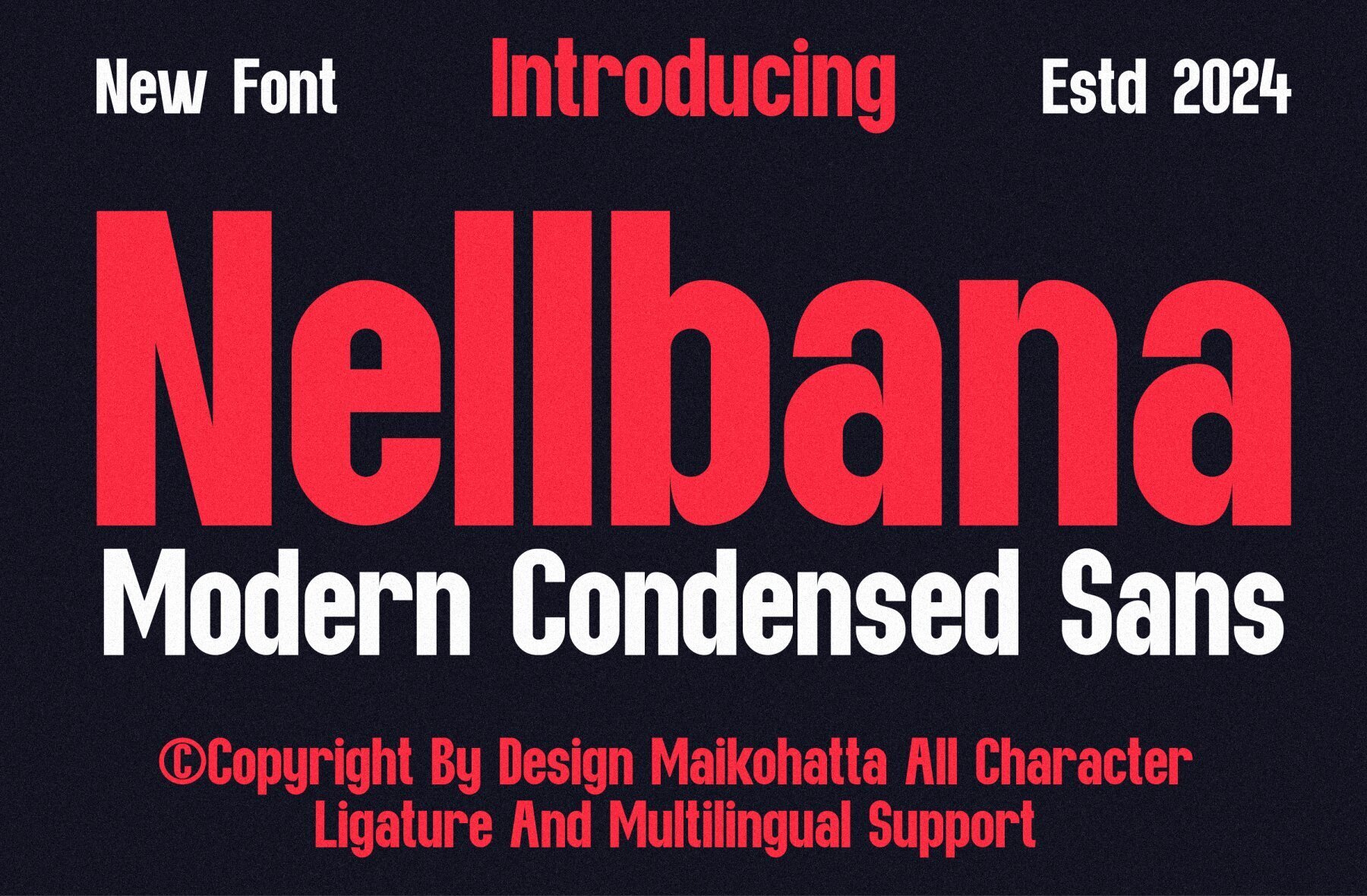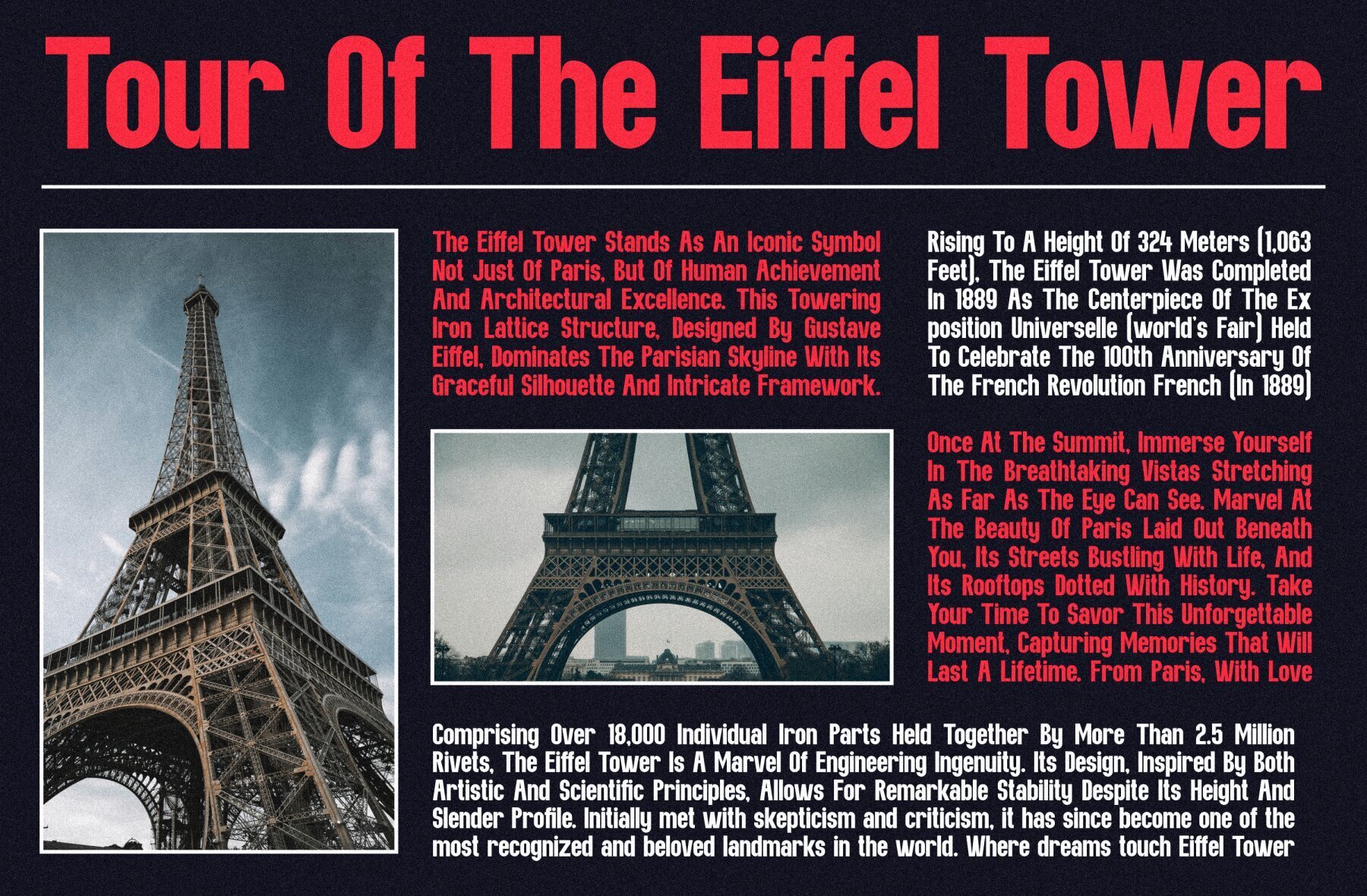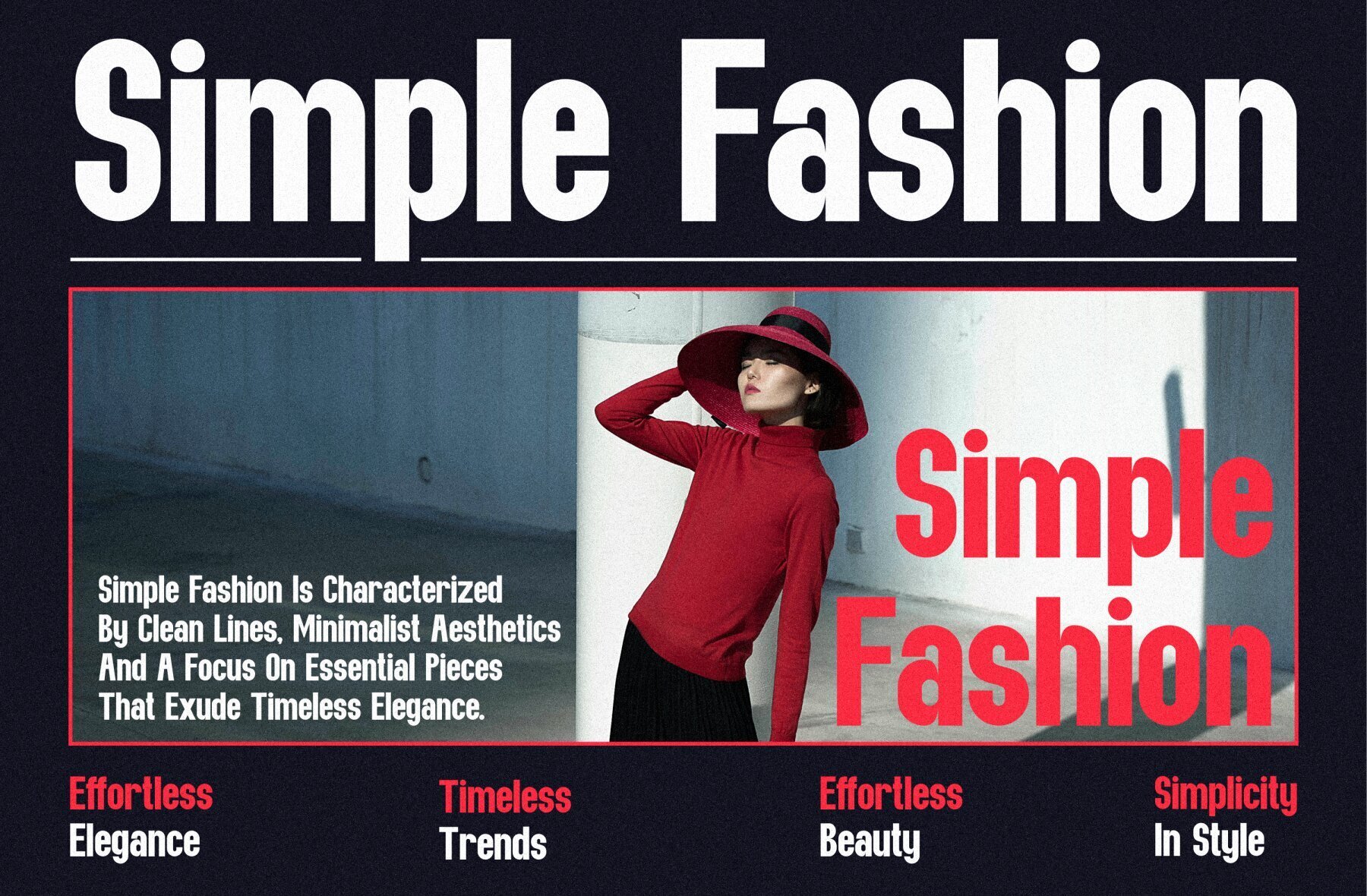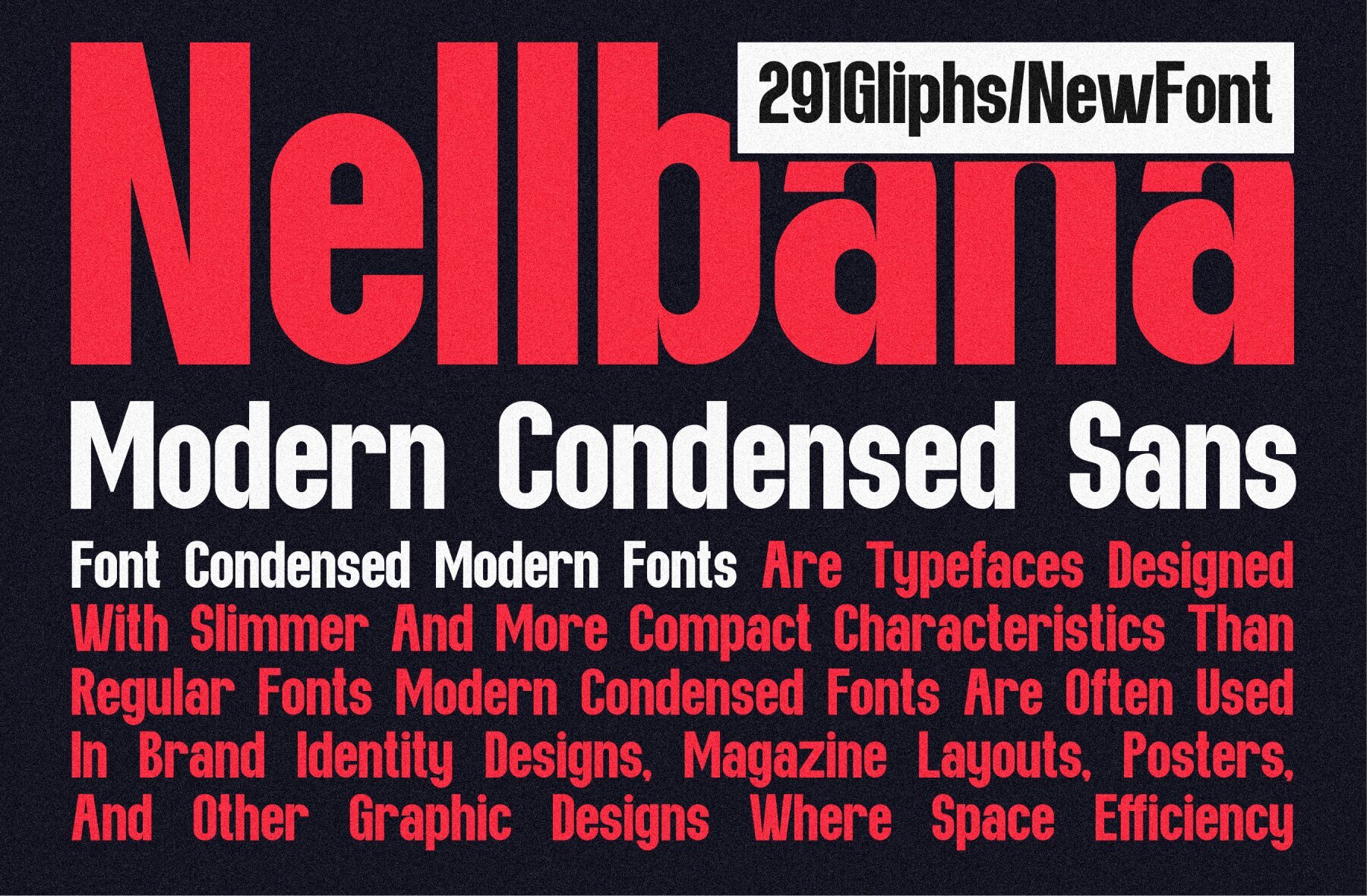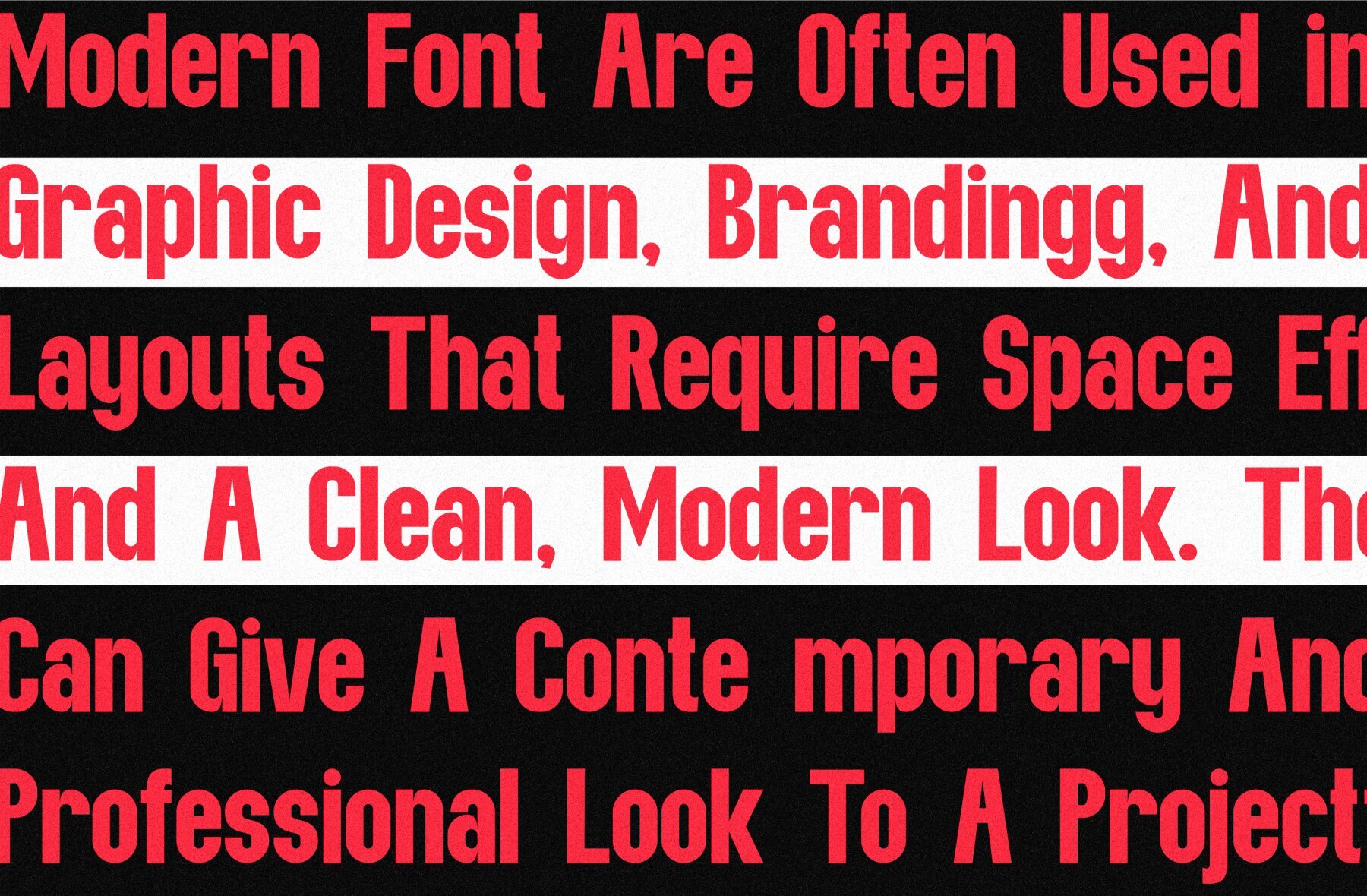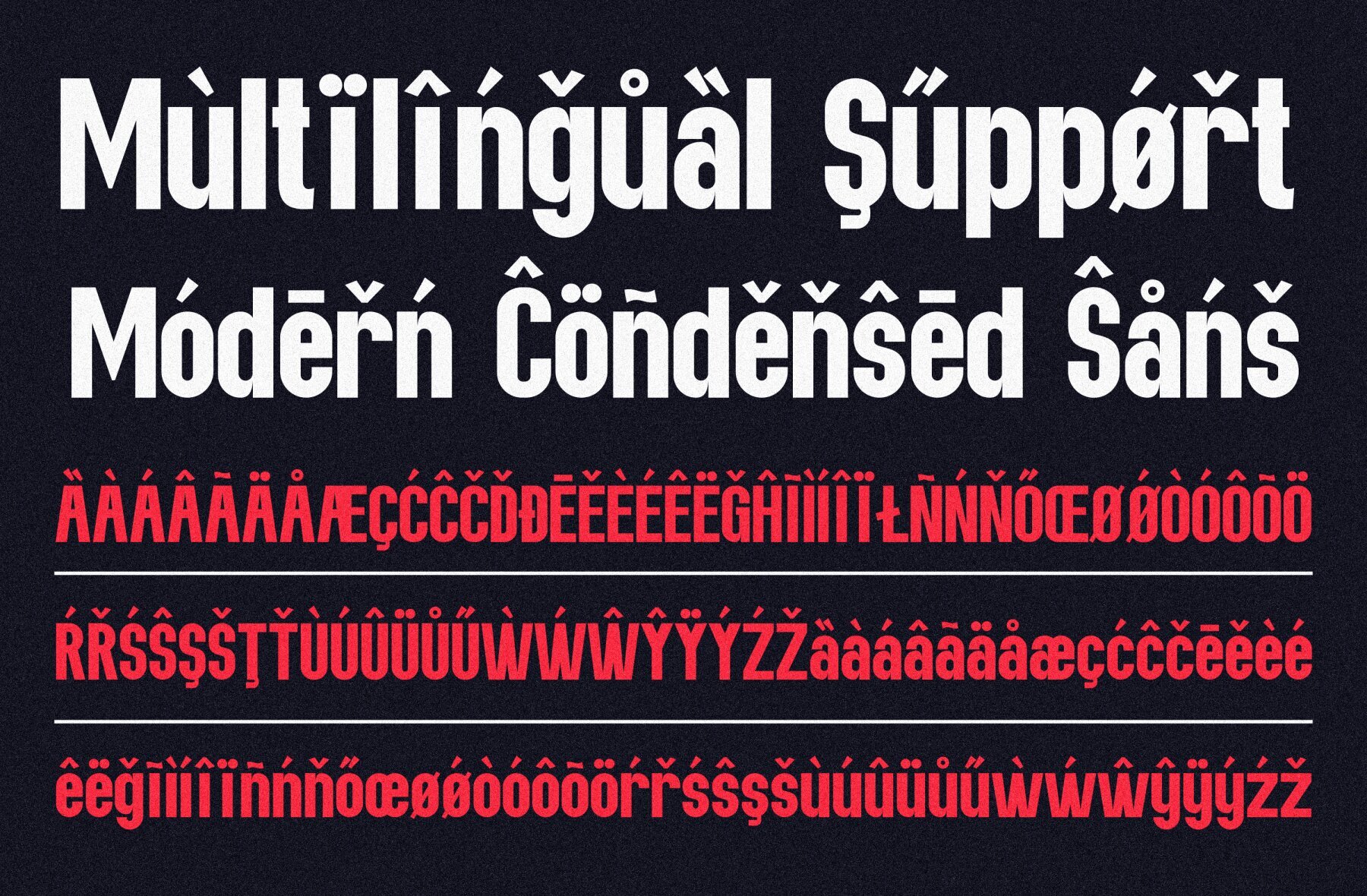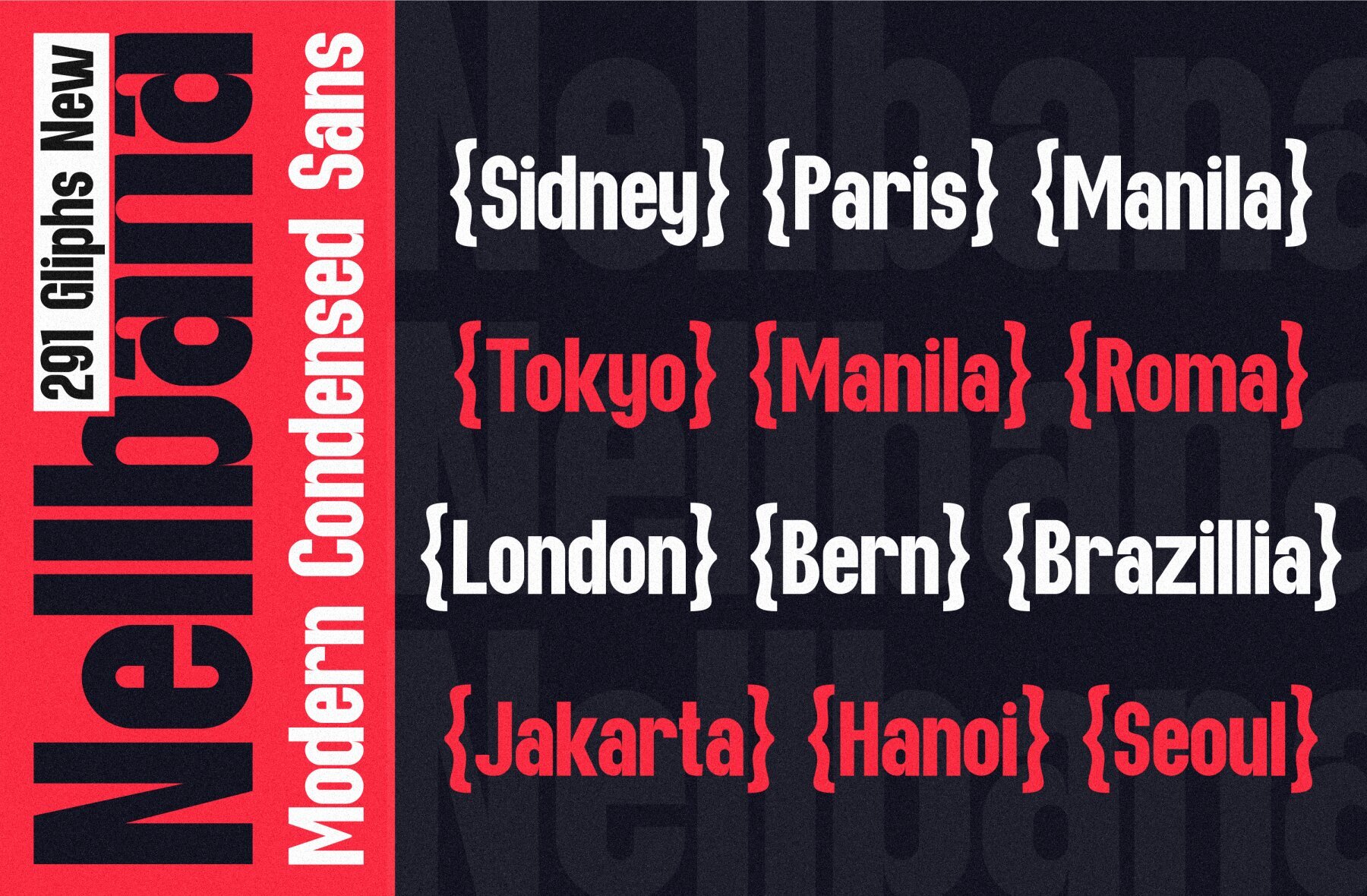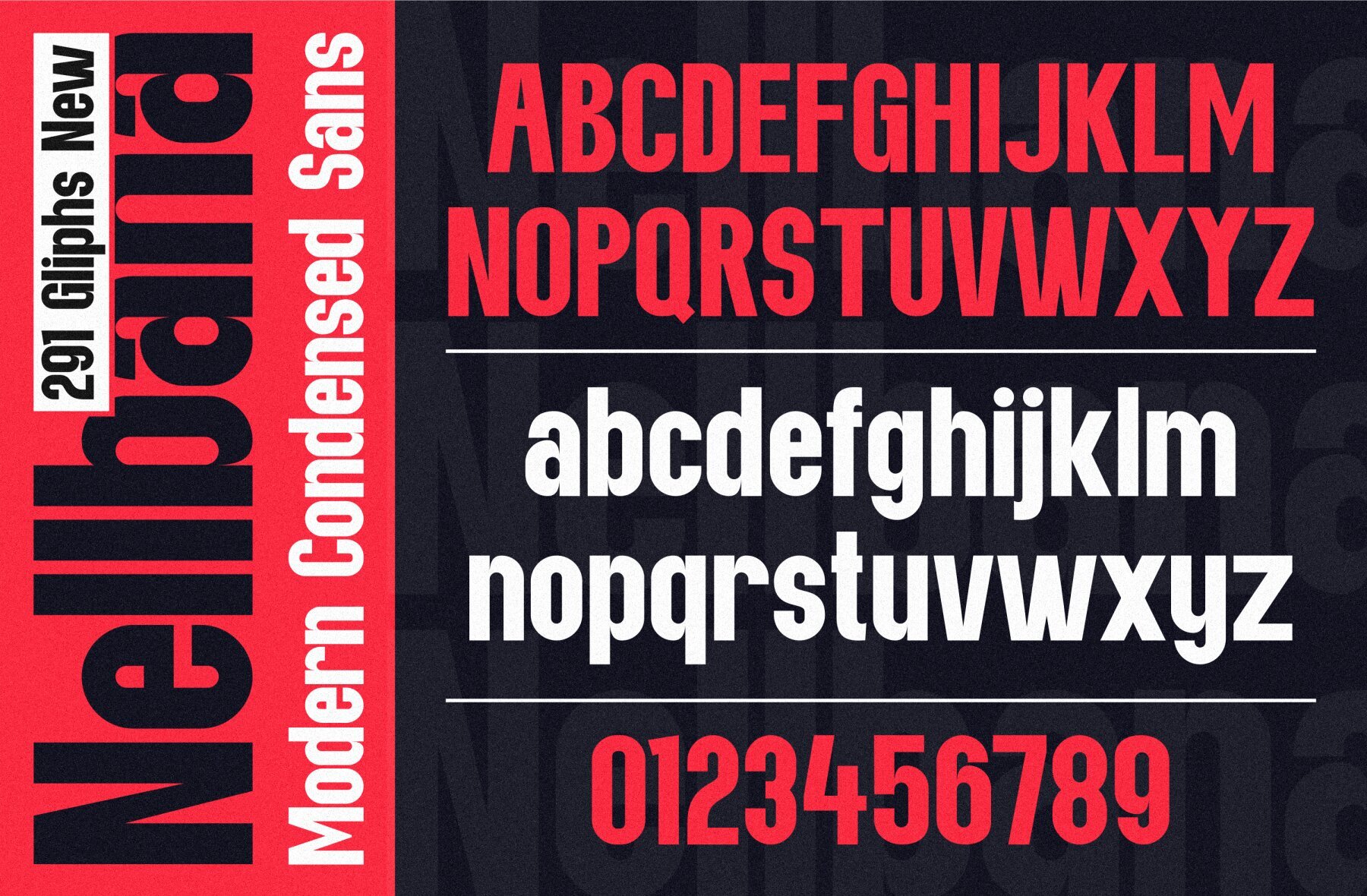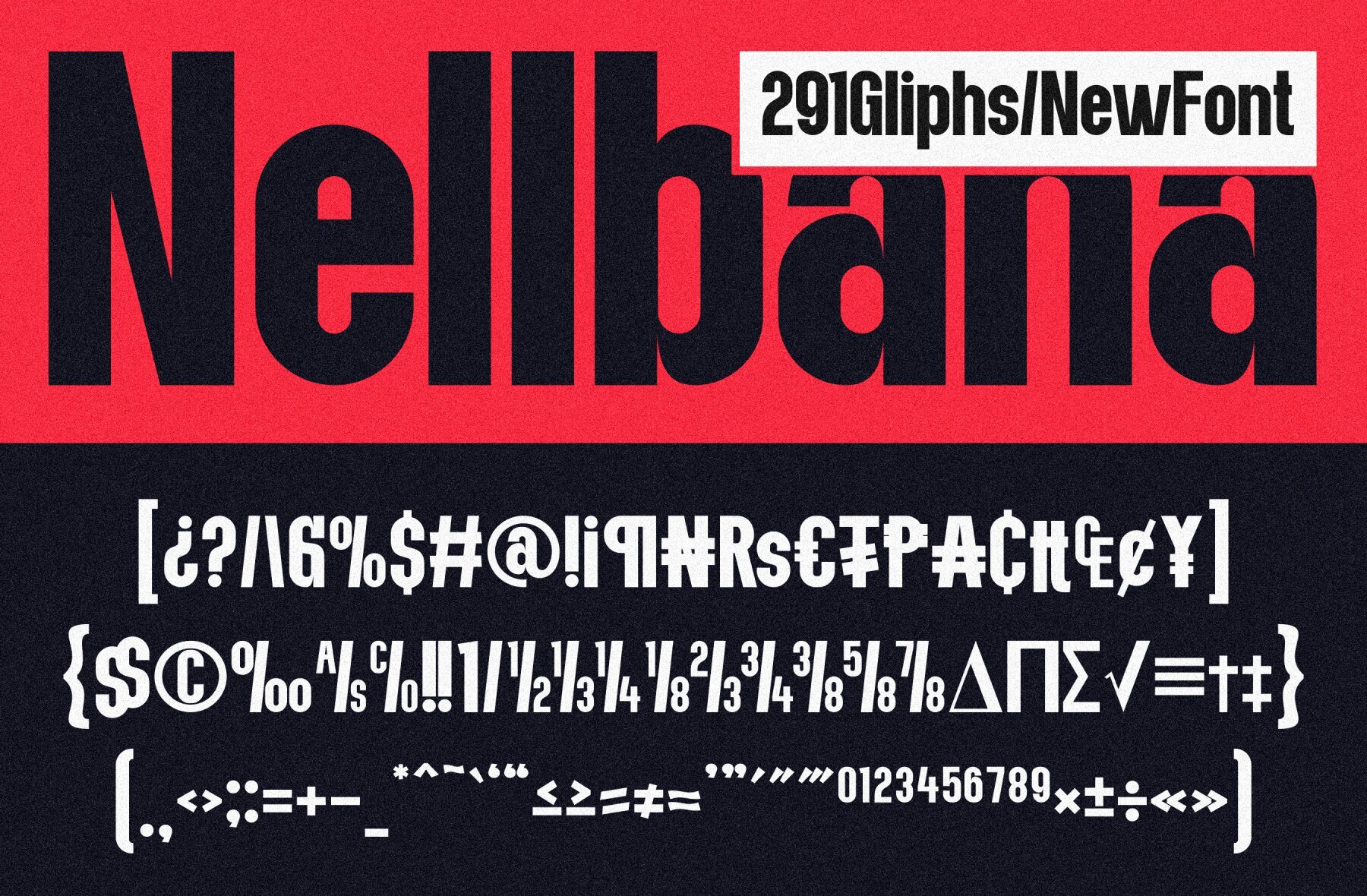
Nellbana Font
Nellbana Regular
Nellbana is a modern condensed sans serif font distinguished by its narrower, slimmer letterforms compared to standard or wide fonts. Its unique design makes it ideal for various graphic designs, print materials, and other media, offering distinct advantages and characteristics.Nellbana: Modern Condensed Sans Font